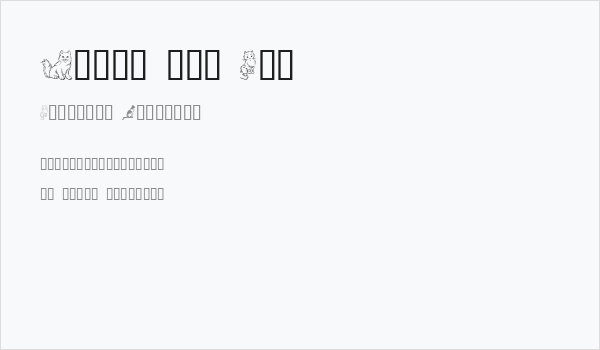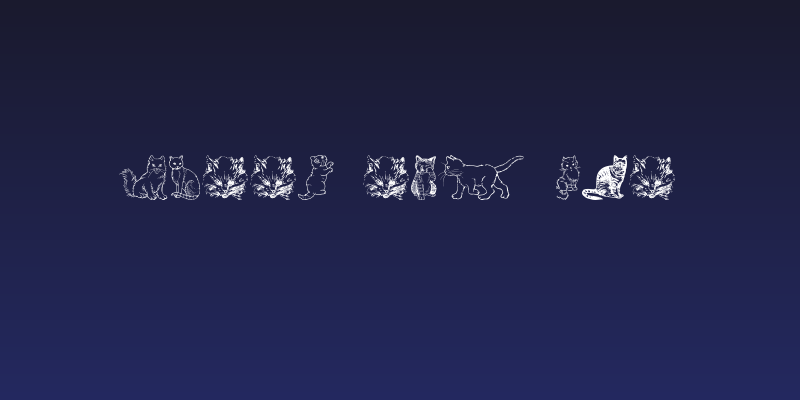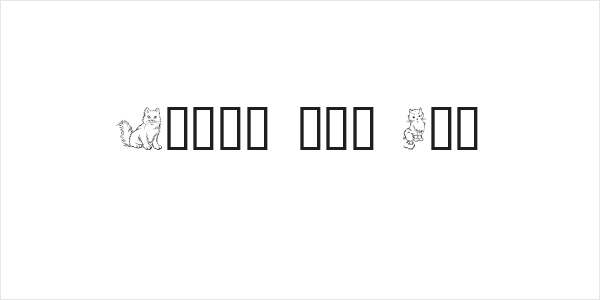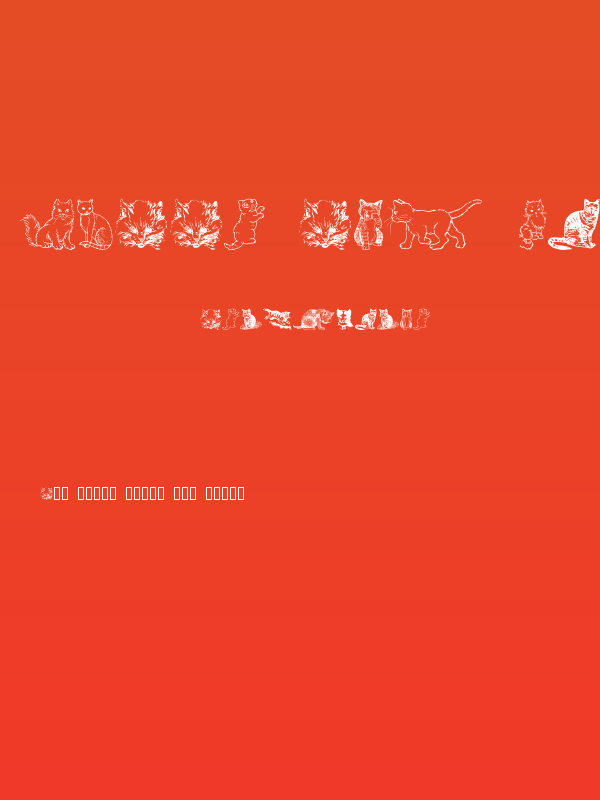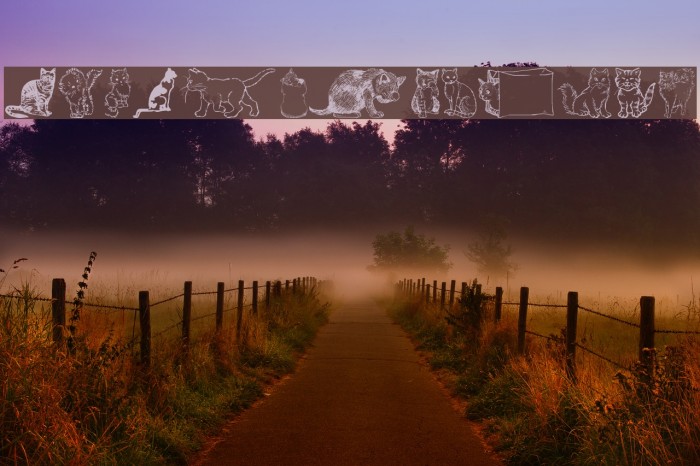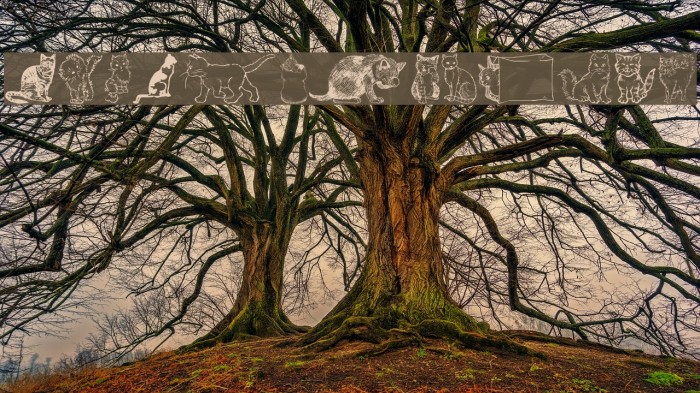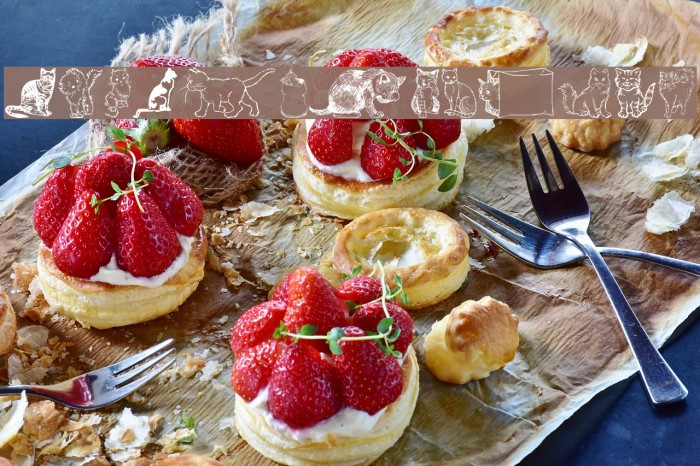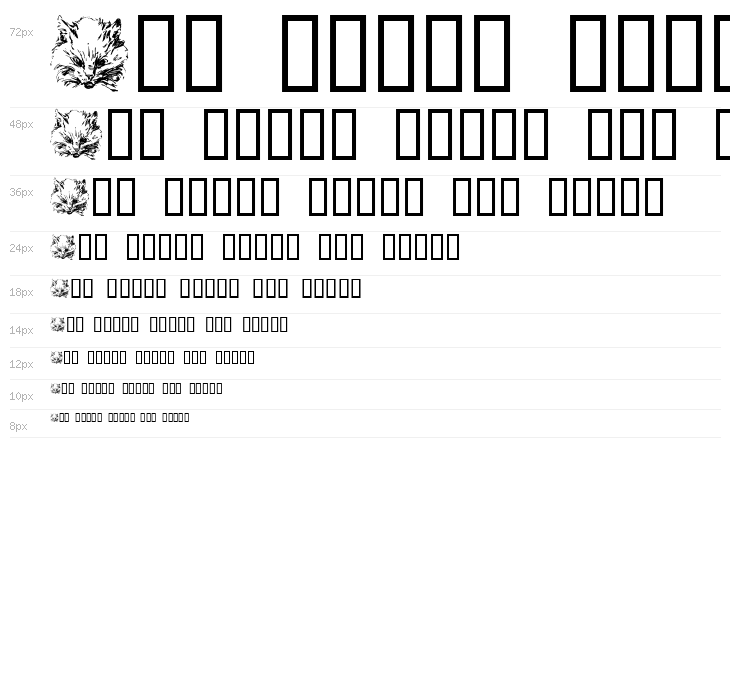
Kitty the Cat Font
Kitty the Cat Description
A decorative font featuring detailed, hand-drawn illustrations of various cats in different poses and styles, replacing standard alphanumeric characters with whimsical feline imagery.
| Overall Style | Decorative, Whimsical, Playful |
| Use Case | Logos, Headlines, Themed graphics, Decorative purposes |
| Proposed Projects | Children's books, pet shop branding, greeting cards, playful posters, animal-themed invitations. |